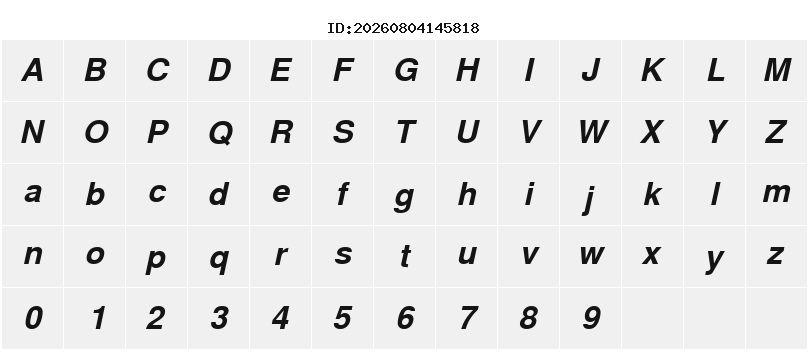
NimbusSanL Preview
• Font Name: NimbusSanL
• Font ID: URW:NimbusSanL-BoldItal:1994
• Full Font Name: NimbusSanL Bold Italic
• PostScript Name: NimbusSanL-BoldItal
About NimbusSanL.ttf
NimbusSanL.ttf is a modern, elegant sans-serif font designed for ultimate readability and visual harmony. Perfect for branding, headlines, web design, and print materials.